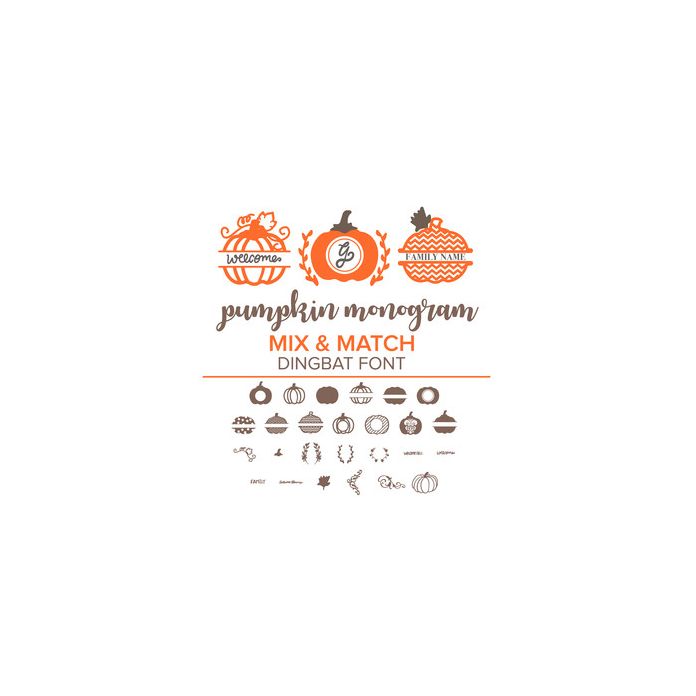
This dingbat font comes in OTF format. Each uppercase and lowercase letters coordinates with a pumpkin design or decorative element meant to be mixed and matched. Monogram letters not included.